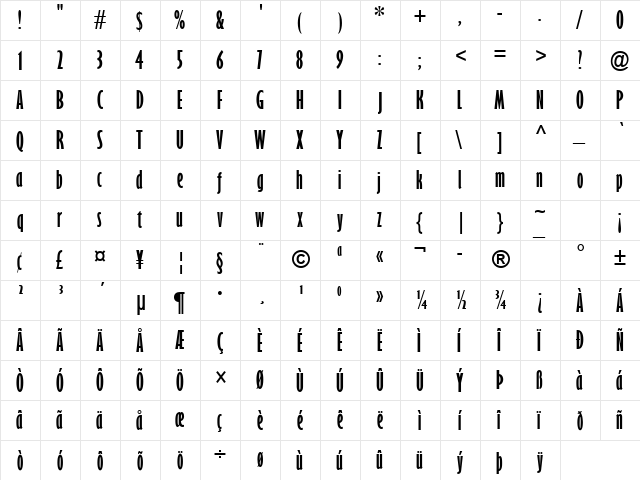
Gill Sans MT Ext Cond Bold Regular
| Foundry | Monotype Typography |
| Designer | Eric Gill |
Design Context for Gill Sans MT Ext Cond Bold Typeface
Gill Sans MT Ext Cond Bold is a composed and adaptable typeface that performs quietly and consistently across a wide range of design contexts. Its bold stroke weight gives it real presence on the page. Its narrow stance lets it pack a punch even in space-constrained designs.